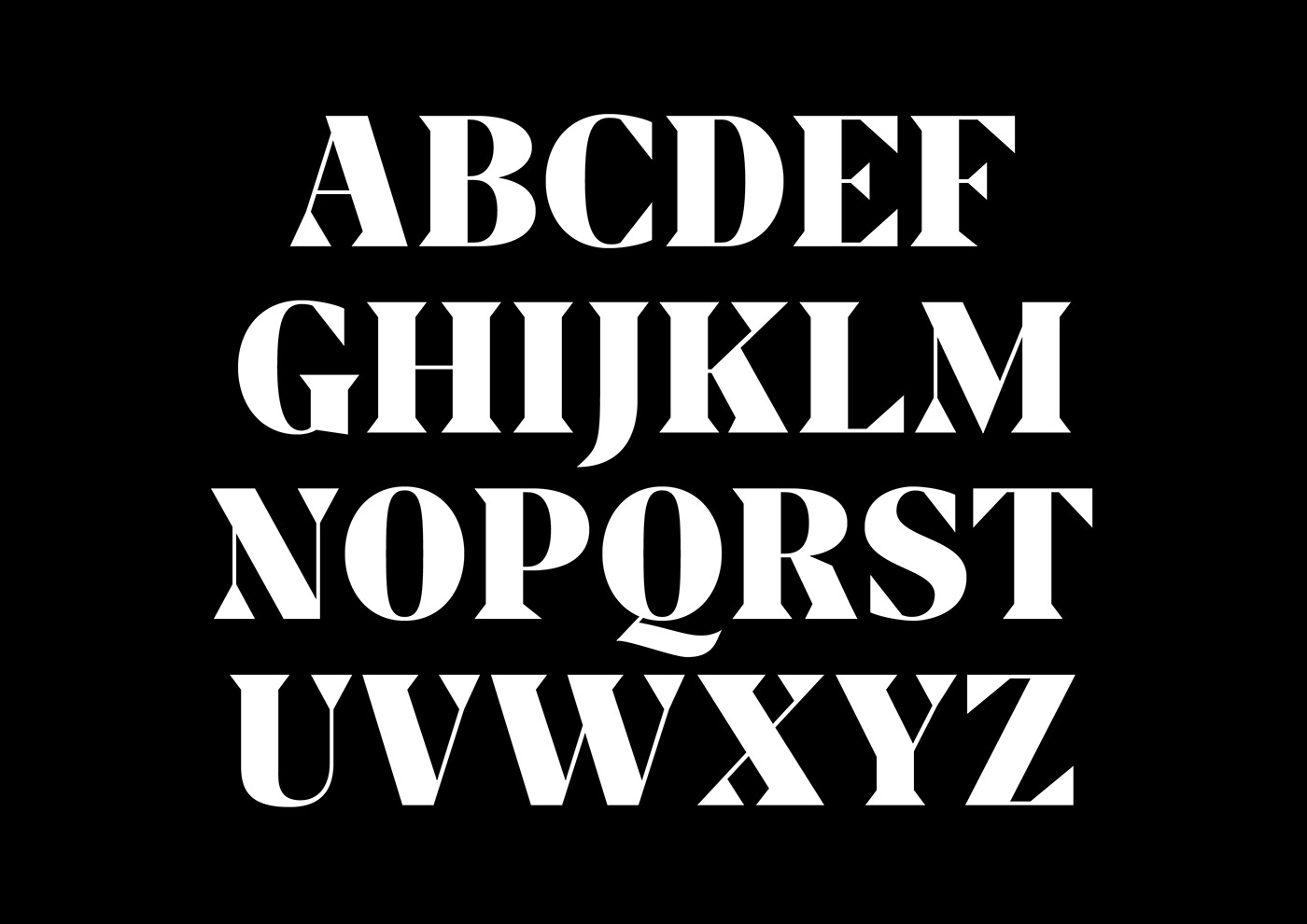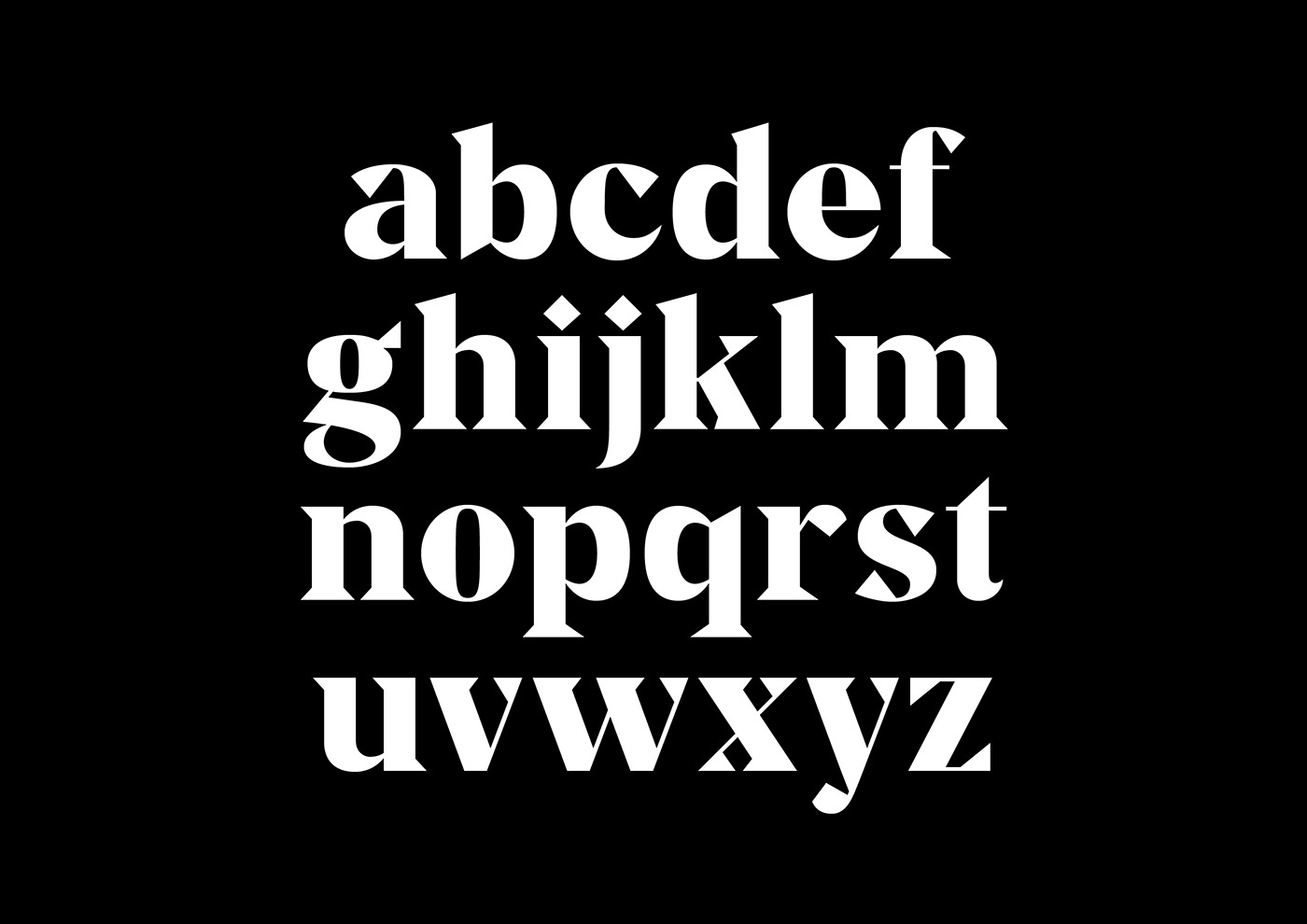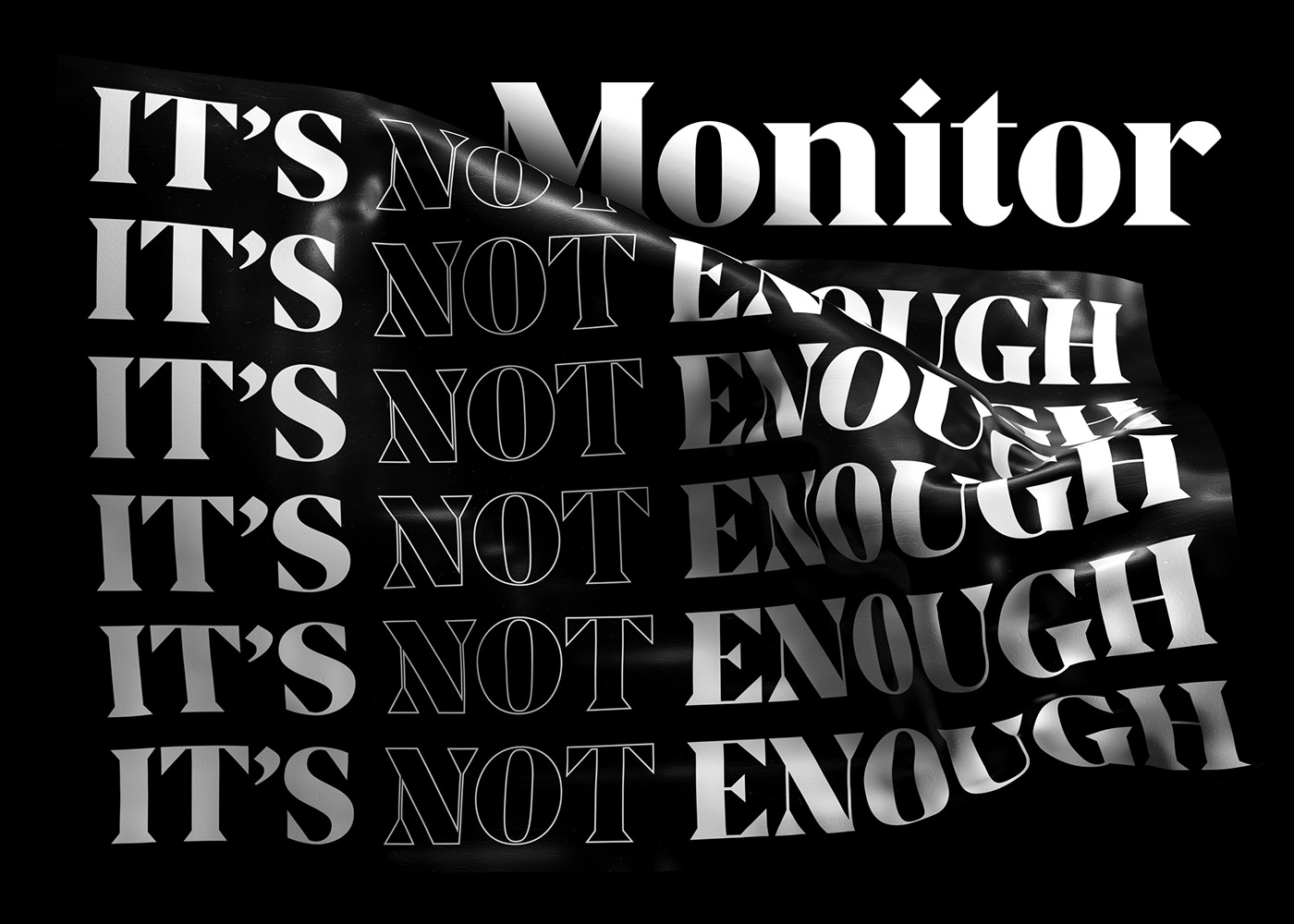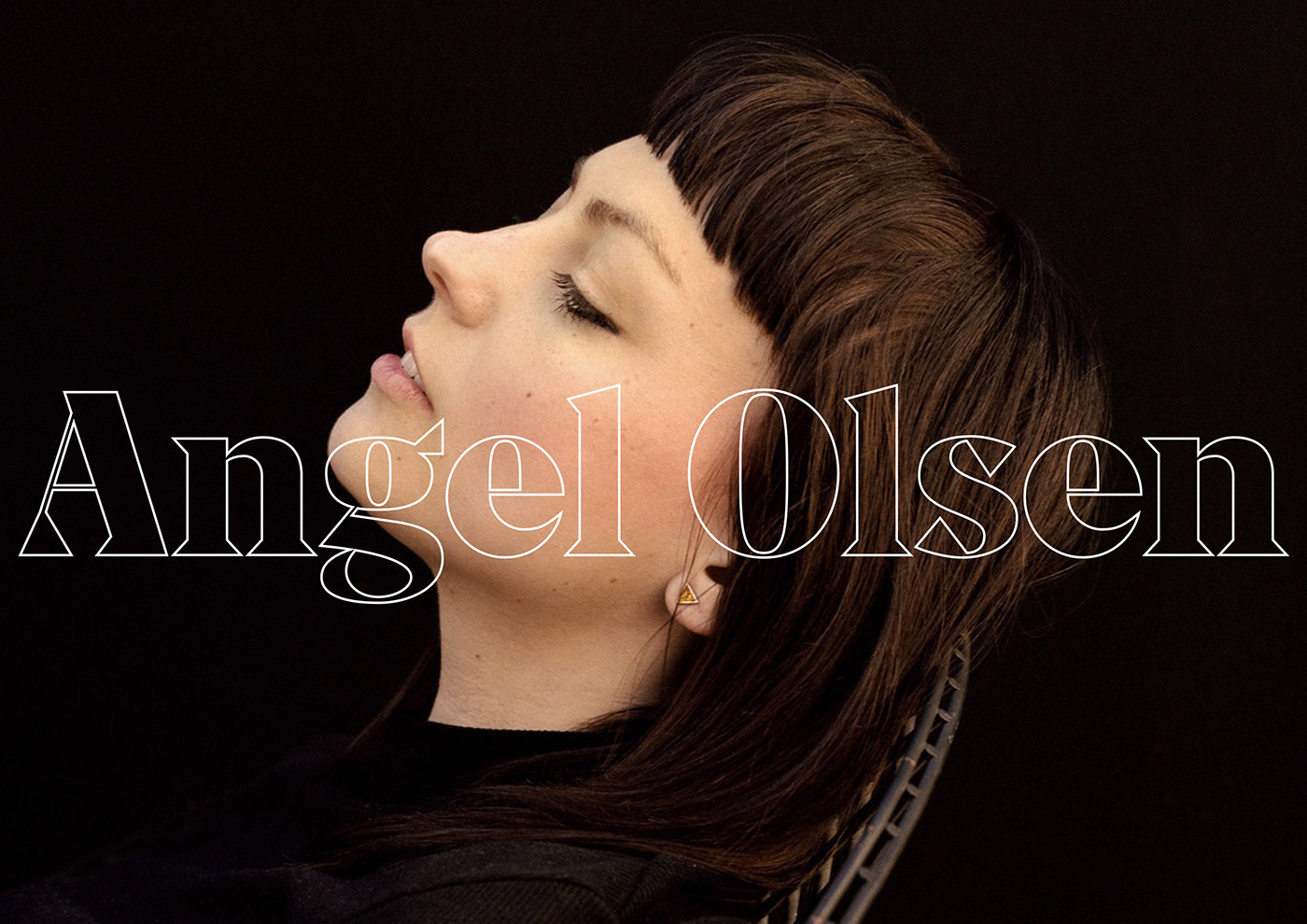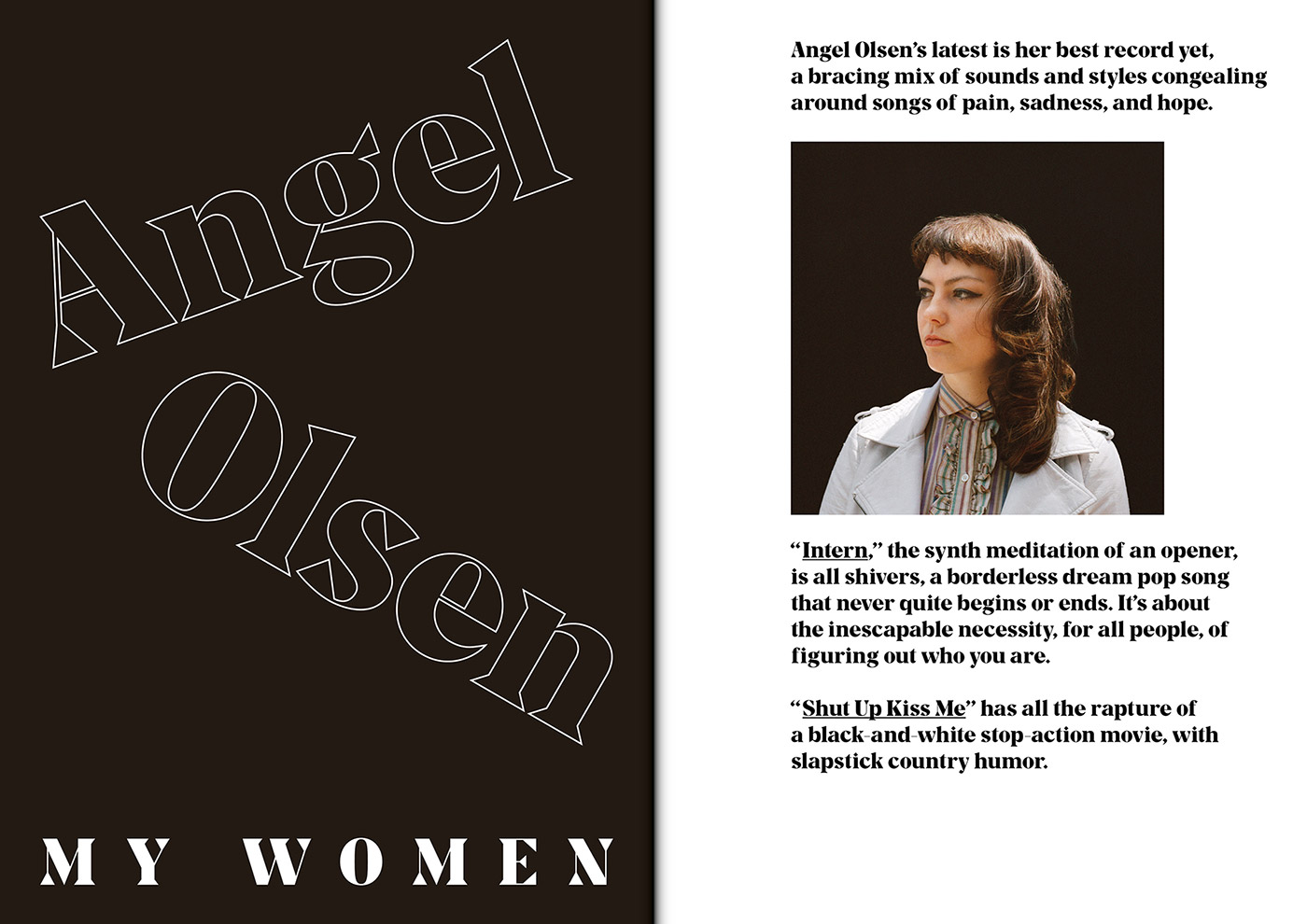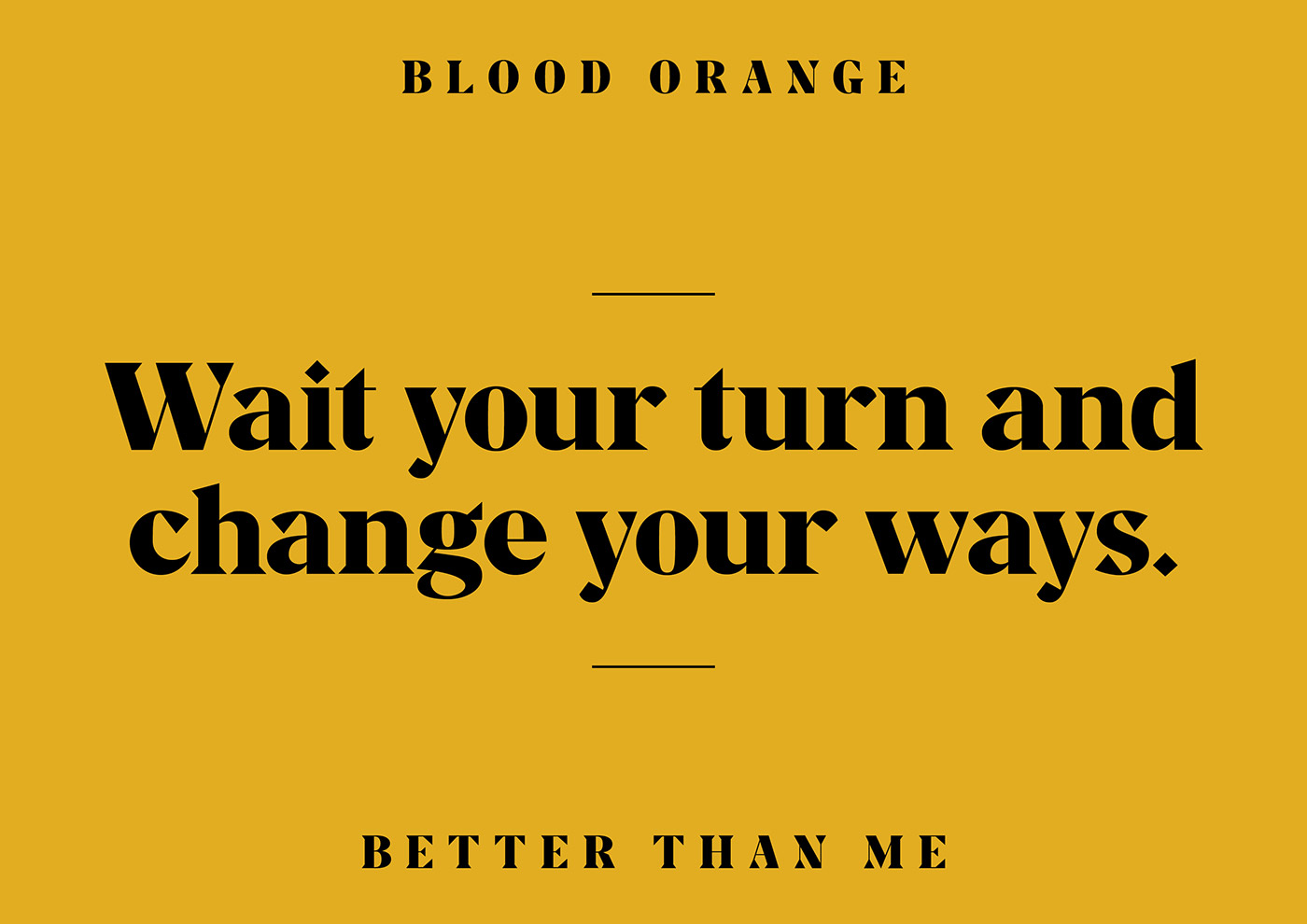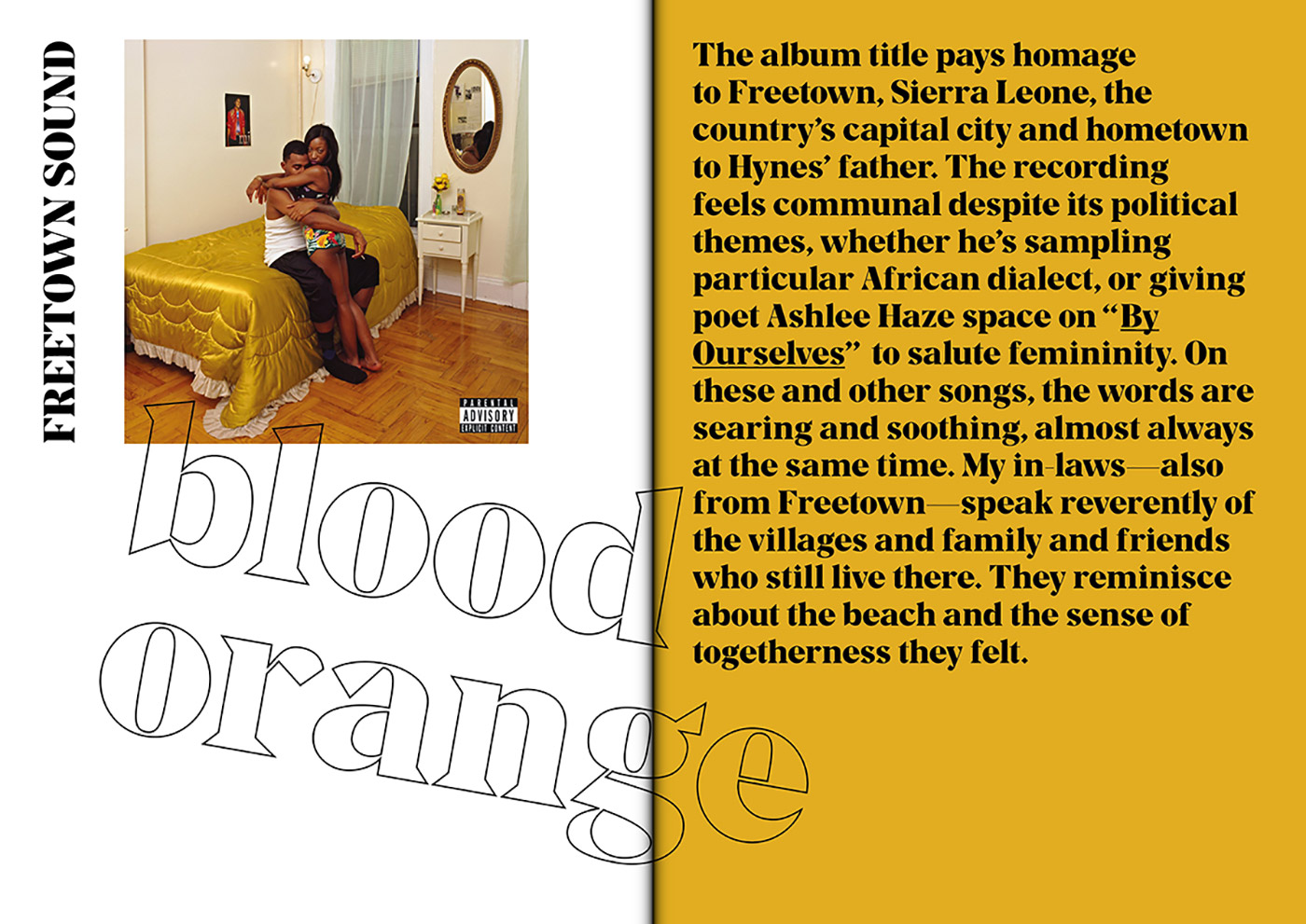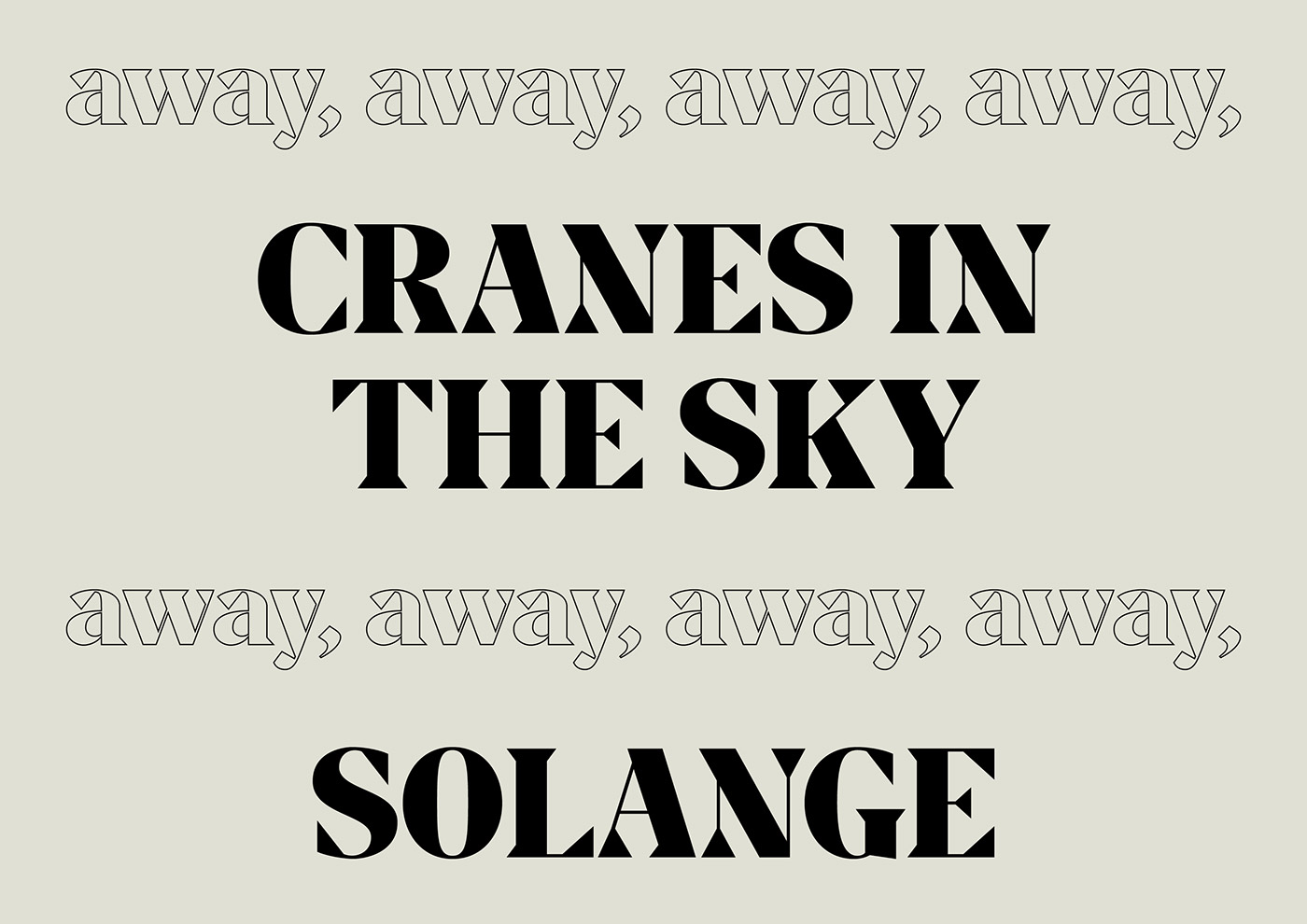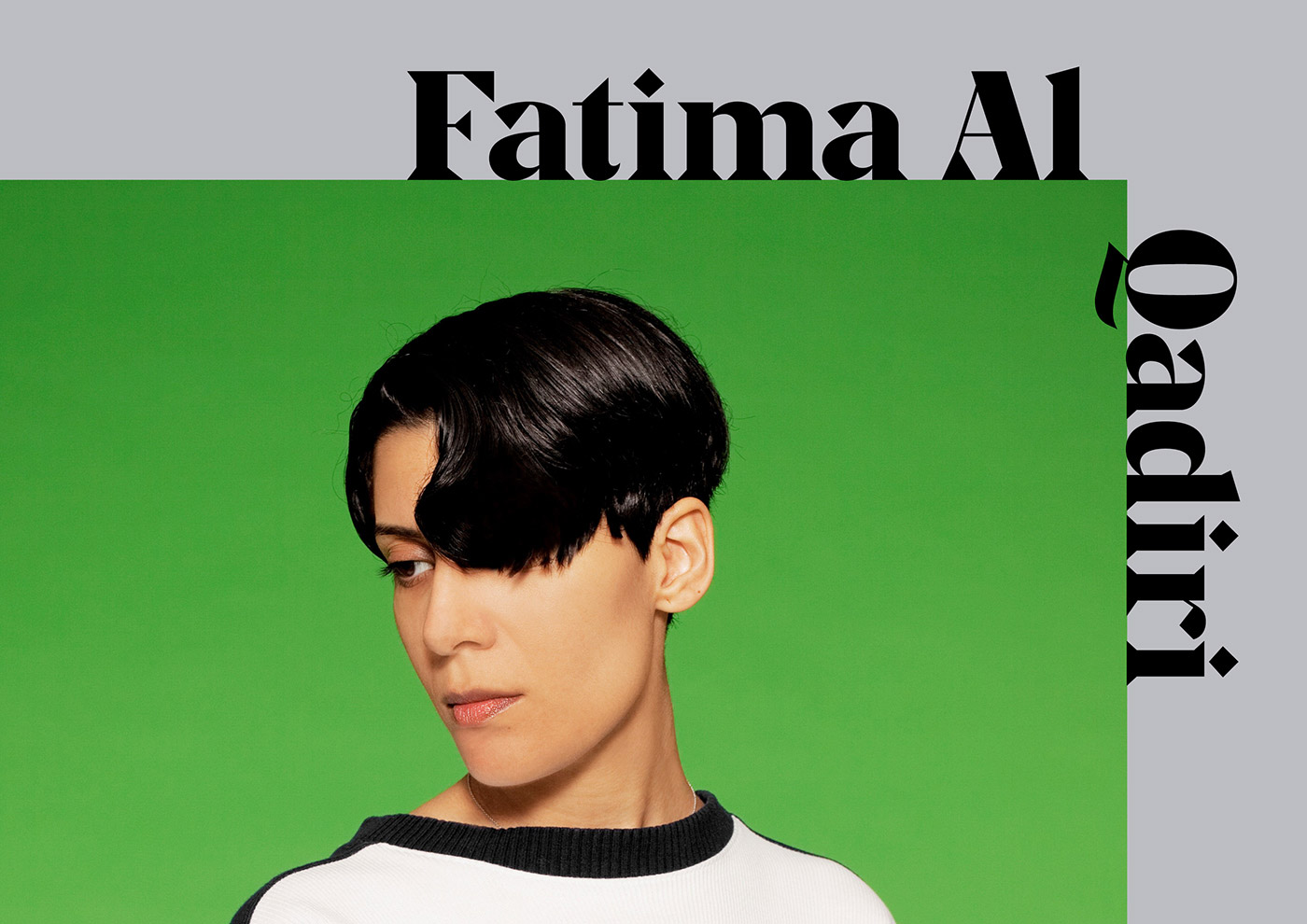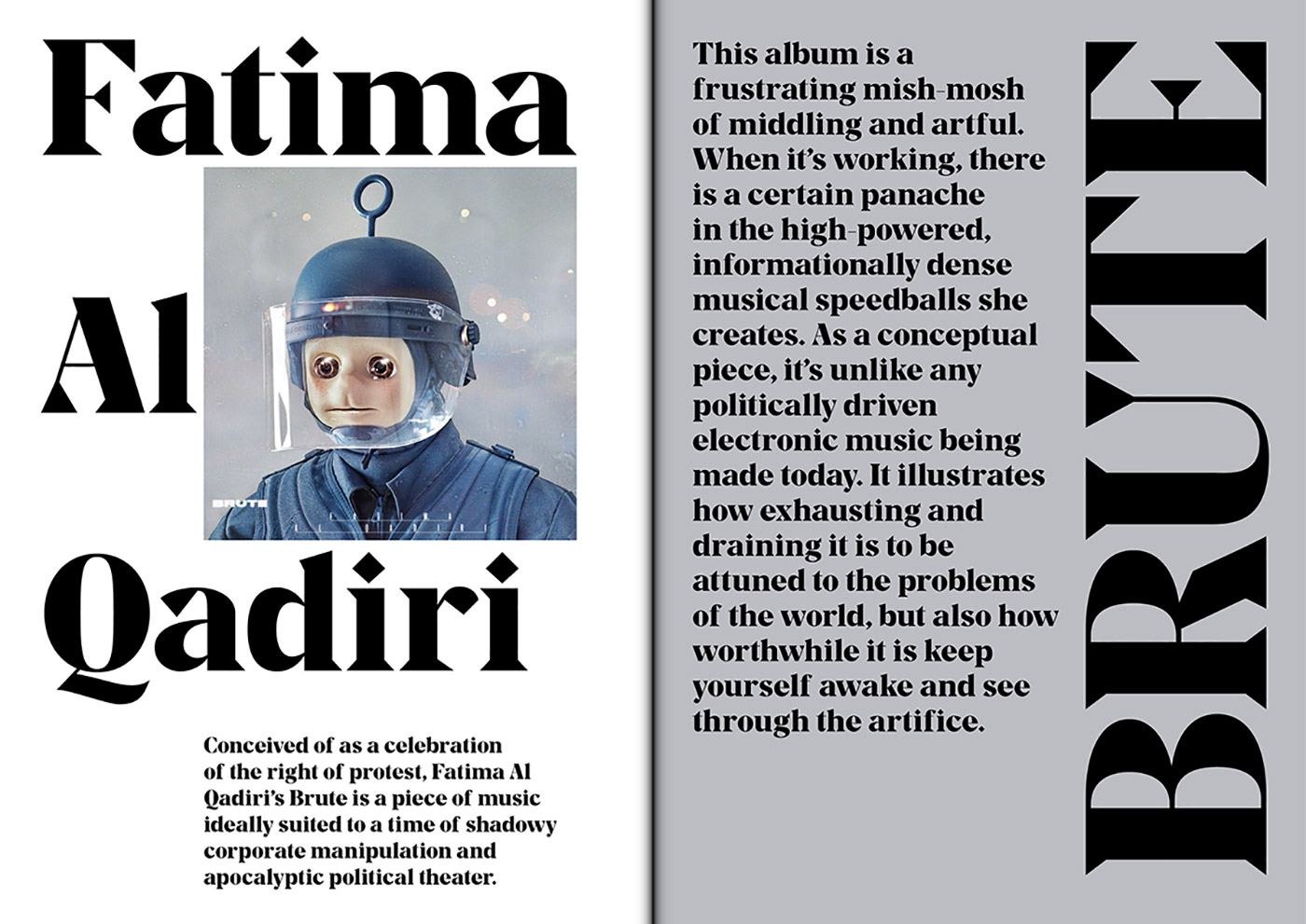
Diana Ferreira
Monitor Display Typeface
Monitor Display is a high contrast typeface with sharp triangular serifs created by Porto-based designer,/u00a0Diana Ferreira.